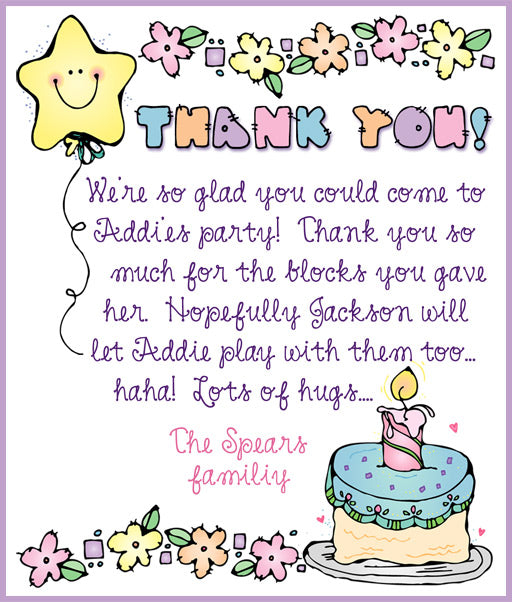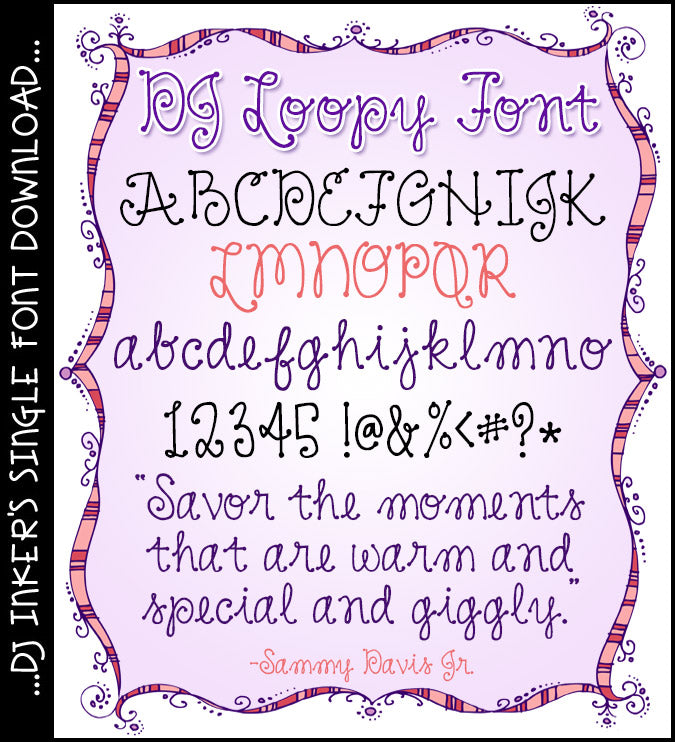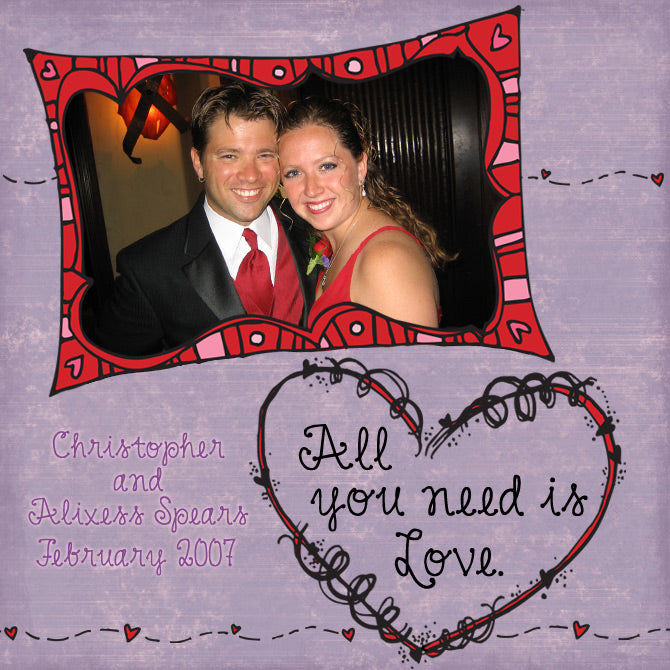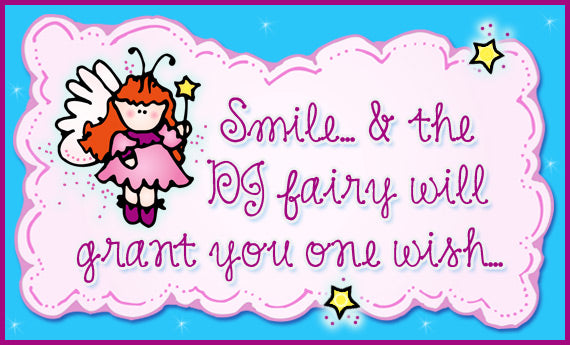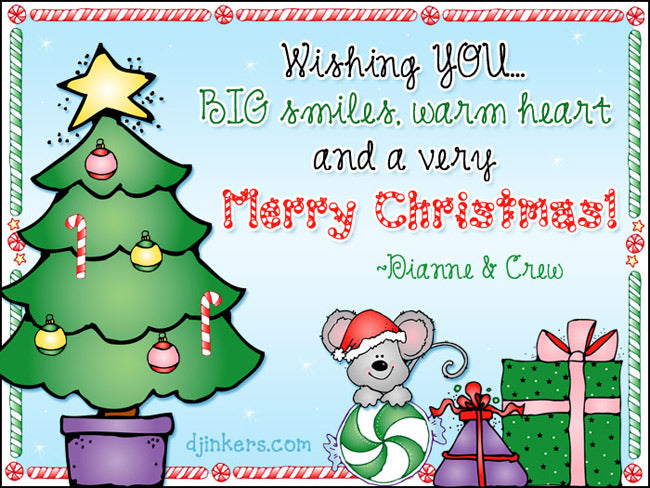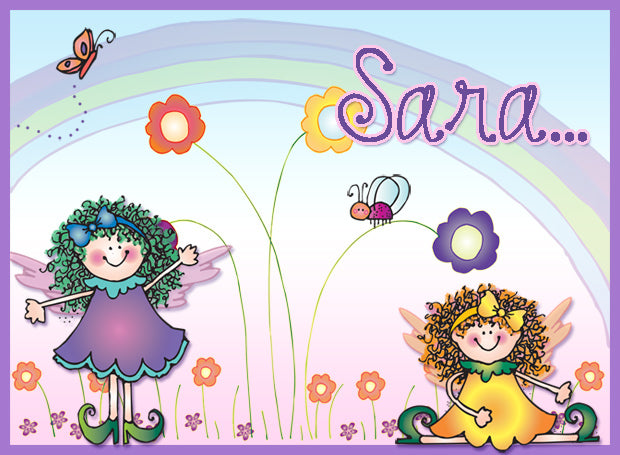
DJ Loopy is a darling cursive dot lettering font, perfect
for adding sugar, spice and a little something nice to any project. Type-up
a smile with this versatile, sweet & scripty font by DJ Inkers.